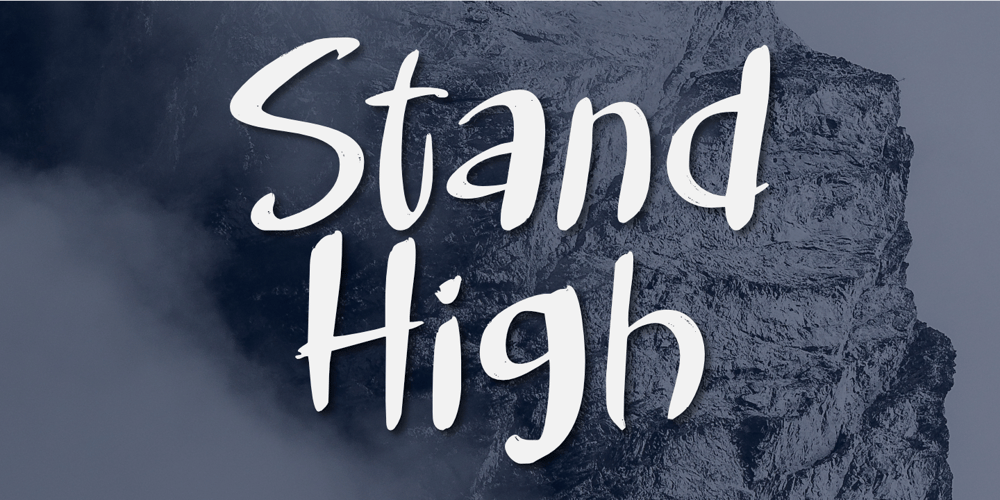
Stand High Font Family was designed by Nurul Hidayani and published by Olivetype. Stand High contains 1 styles and family package options. Stand High is a handwritten typeface with an organic, hand-drawn feel. It’s perfect for headlines, movie titles, and other creative applications. With its brush-like strokes and slightly rough texture, Stand High is sure to add an extra touch of personality to your designs.So what’s included : Standard Latin Numbers, symbols, and punctuations Ligatures and Swashes Multilingual Support. Accented Characters : ÀÁÂÃÄÅÆÇÈÉÊËÌÍÎÏÑÒÓÔÕÖØŒŠÙÚÛÜŸÝŽàáâãäåæçèéêëìíîïñòóôõöøœšùúûüýÿžß PUA Encoded and fully accessible without additional design software Simple Installations Works on PC & Mac Thank You!